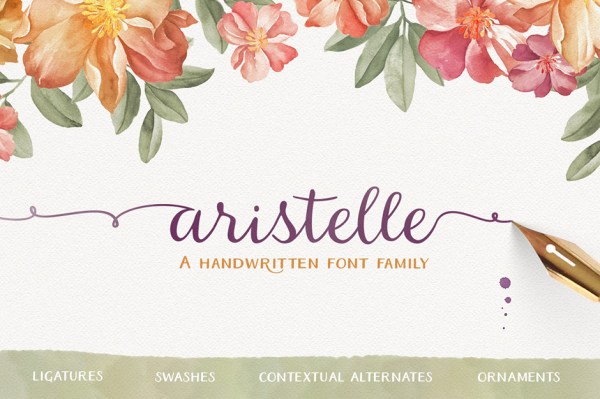
Font Frenzy: Aristelle Family – Free Font
Aristelle is a beautiful handwritten font by My Creative Land. There are three fonts in the family: Aristelle Script, Aristelle Sans, Aristelle Sans Condensed.